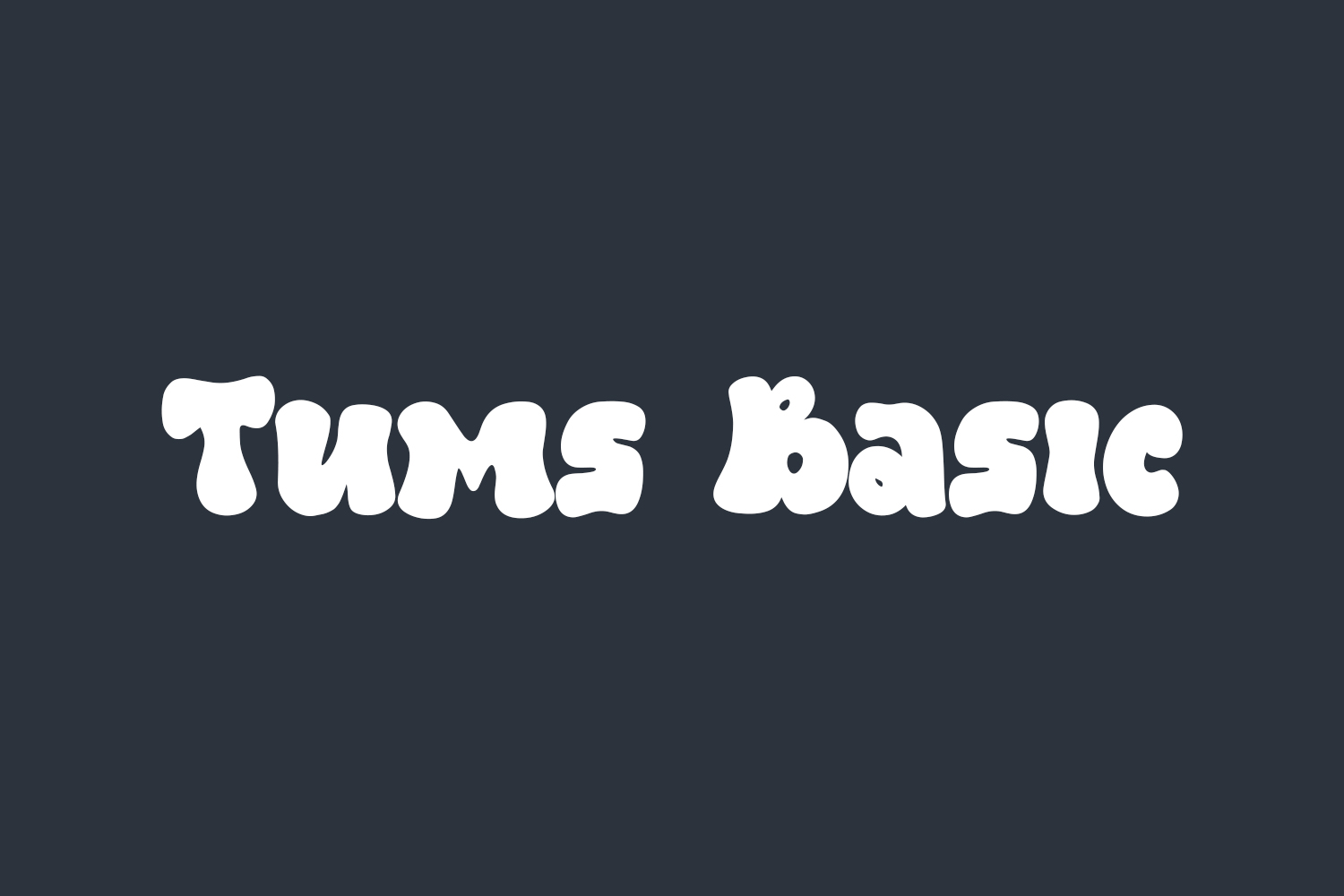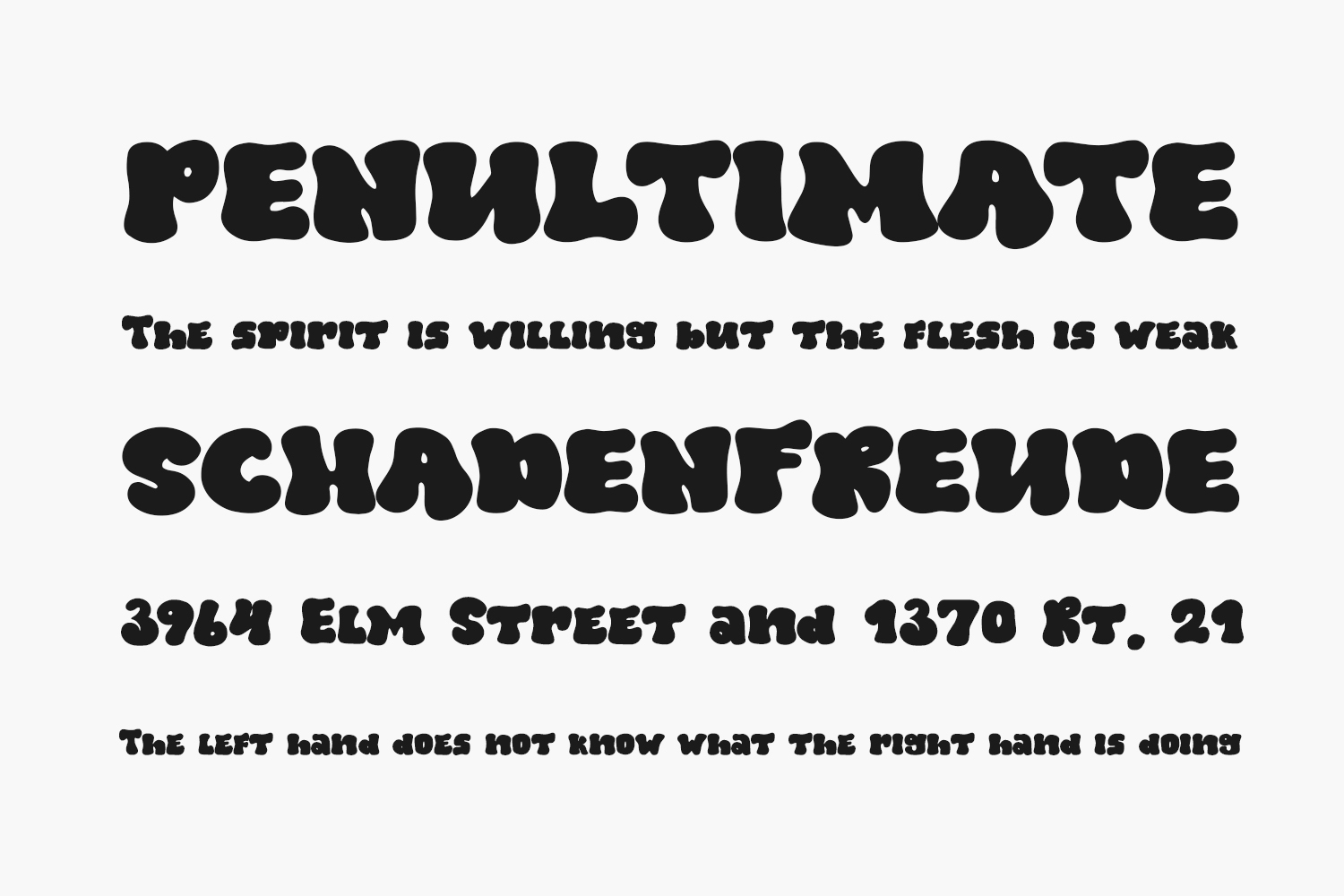
Introducing the grooviest font around, Tums Basic Free Font! This font is not your average typeface – it’s a display font that’s sure to catch anyone’s eye. Tums Basic Free is perfect for adding a fun and playful touch to your designs, whether you’re creating posters, social media graphics, or anything in between.
With its rounded edges and bold, chunky letterforms, Tums Basic Free Font exudes a sense of carefree energy that’s perfect for capturing the spirit of the ’60s and ’70s. This font is a true throwback, evoking the era of Woodstock, tie-dye shirts, and peace signs. But it’s also versatile enough to be used in contemporary designs, bringing a touch of retro cool to any project.
So if you’re looking to add a little bit of funk to your designs, look no further than Tums Basic Free. This font is sure to bring a smile to your face and a sense of joy to your designs!